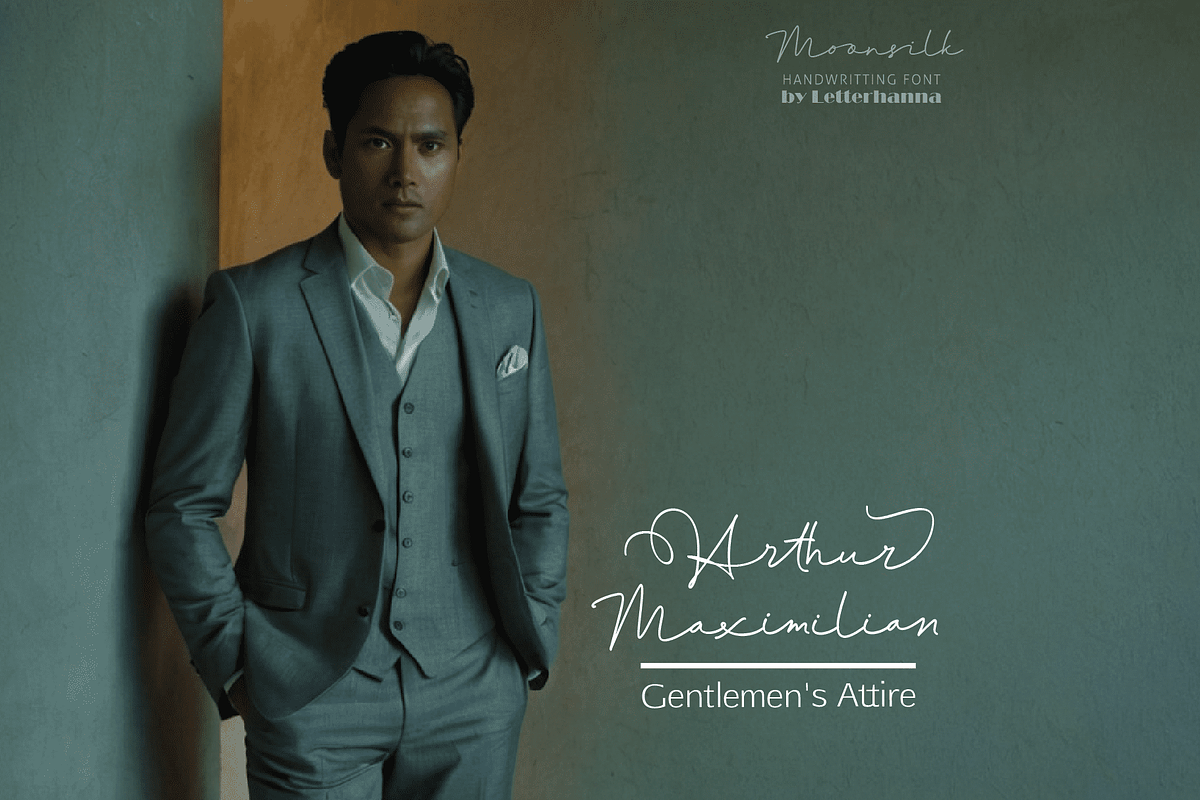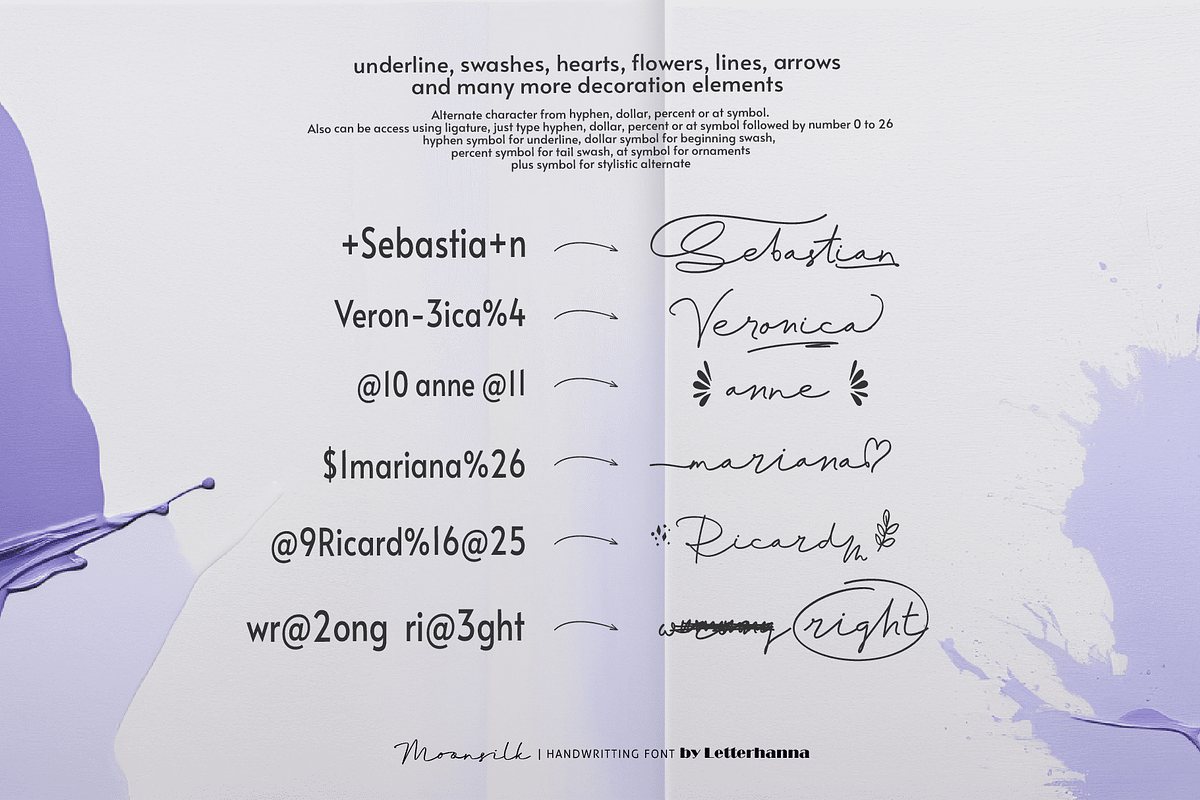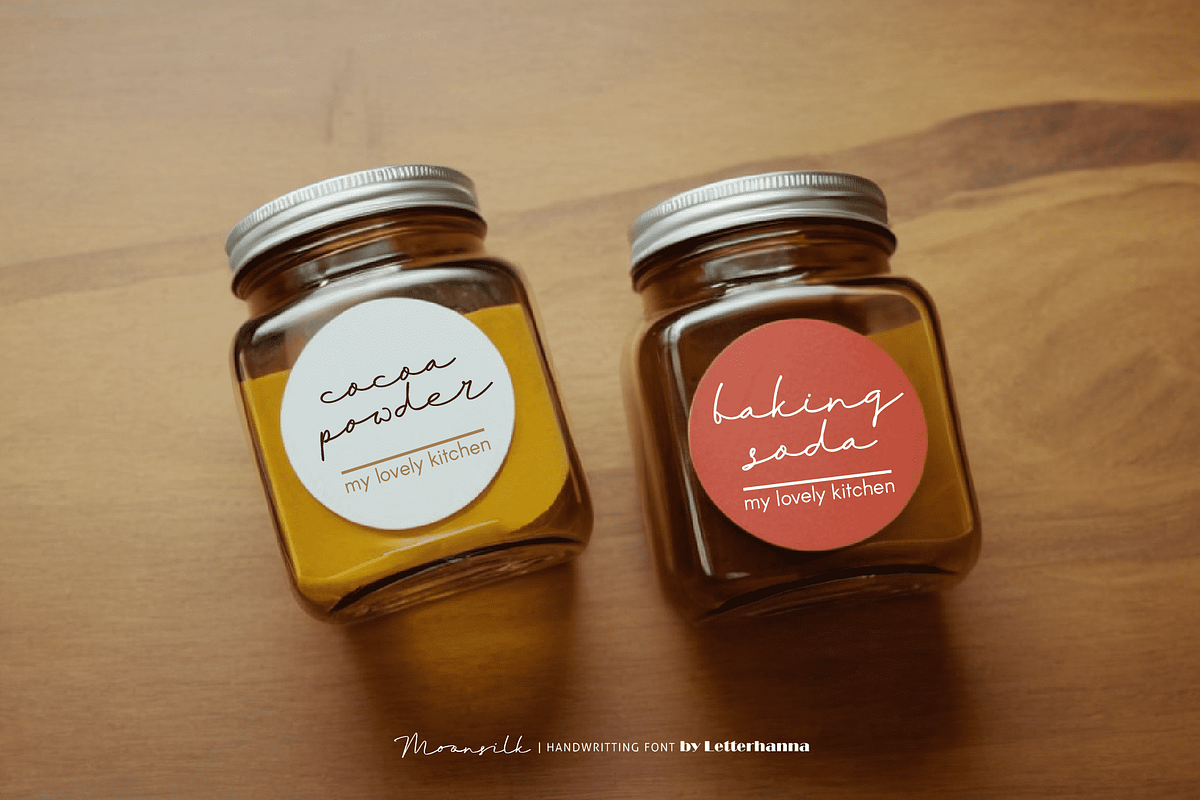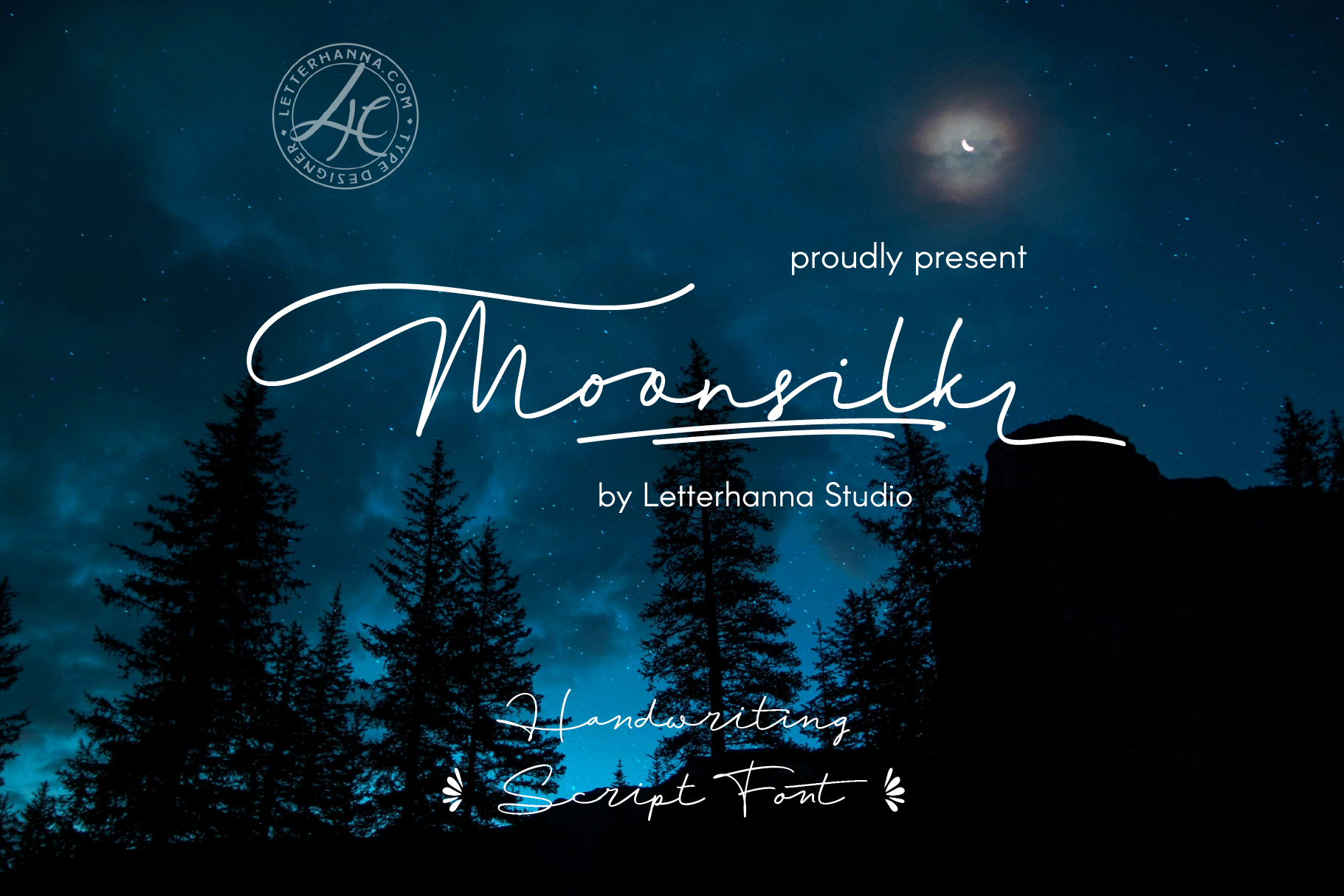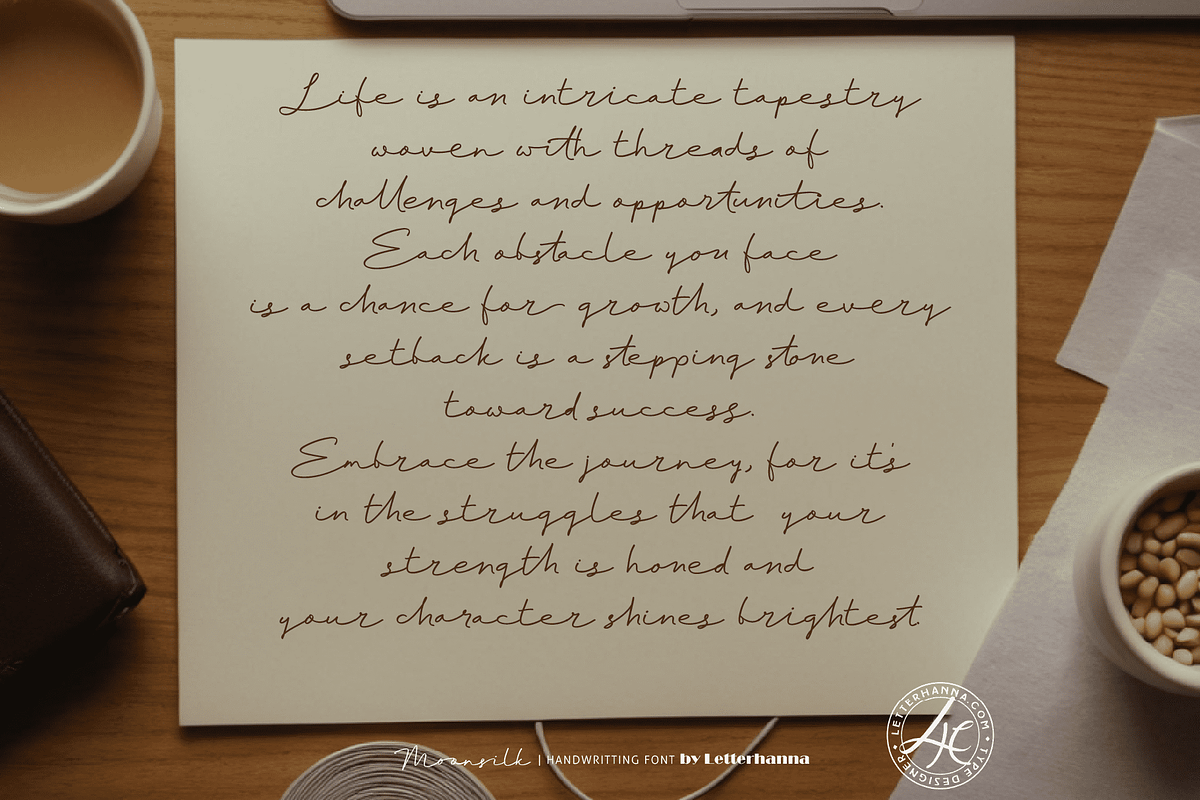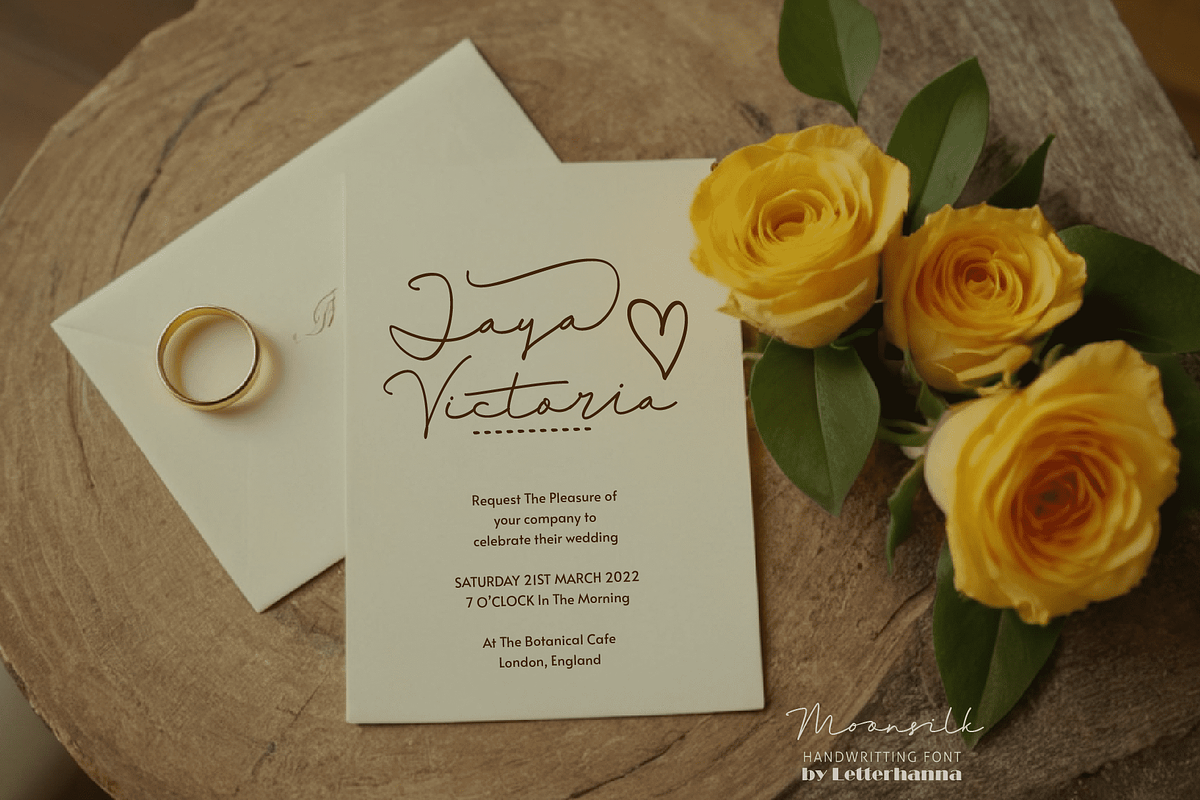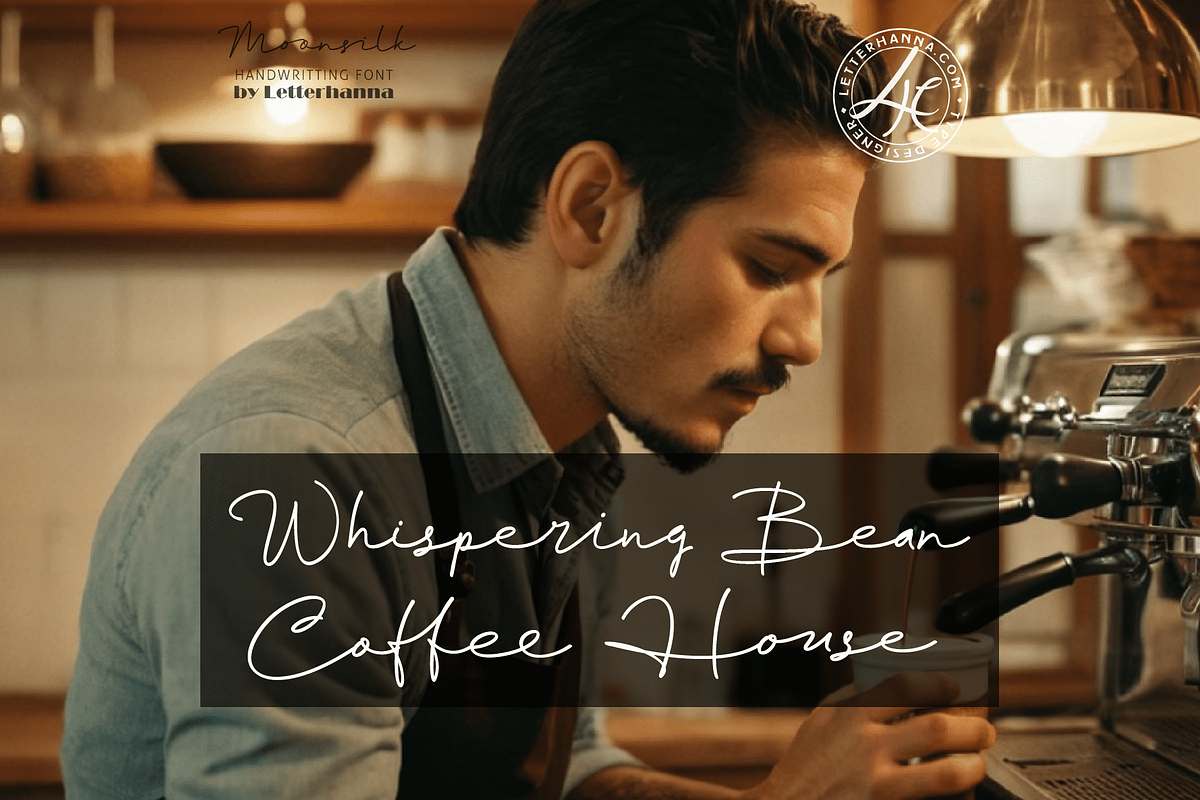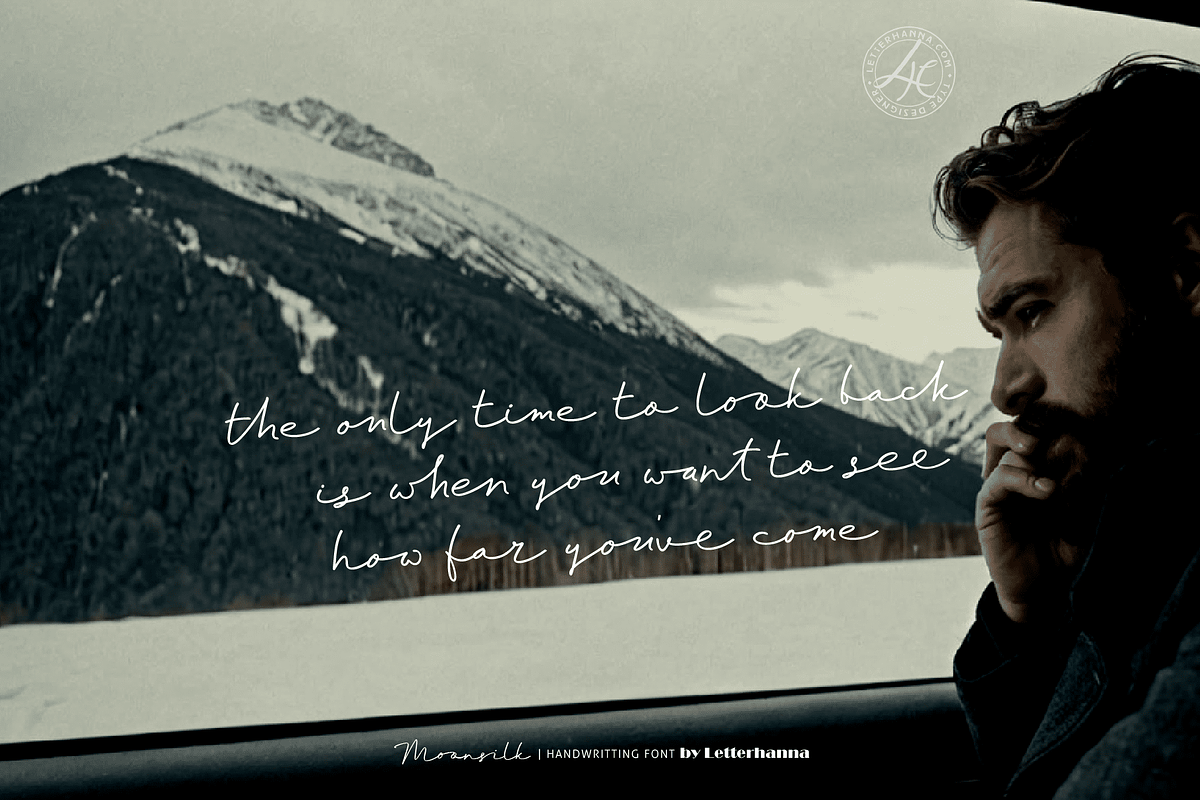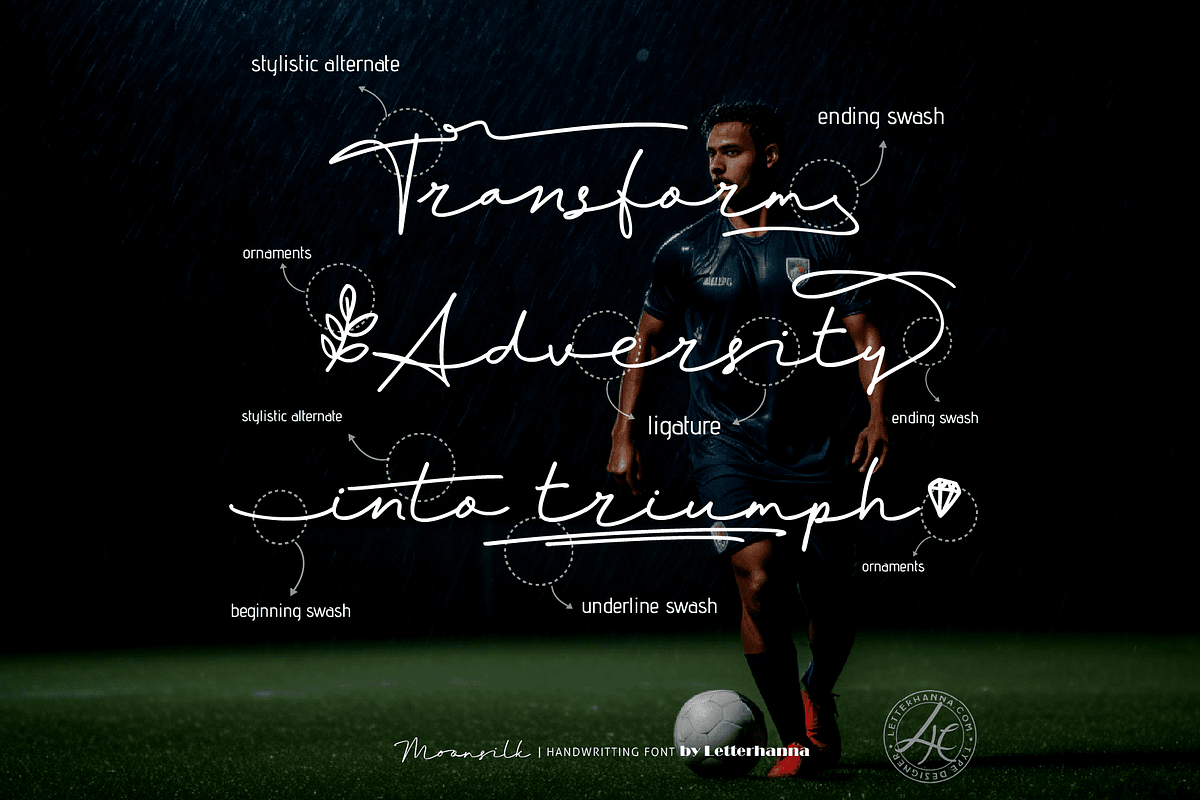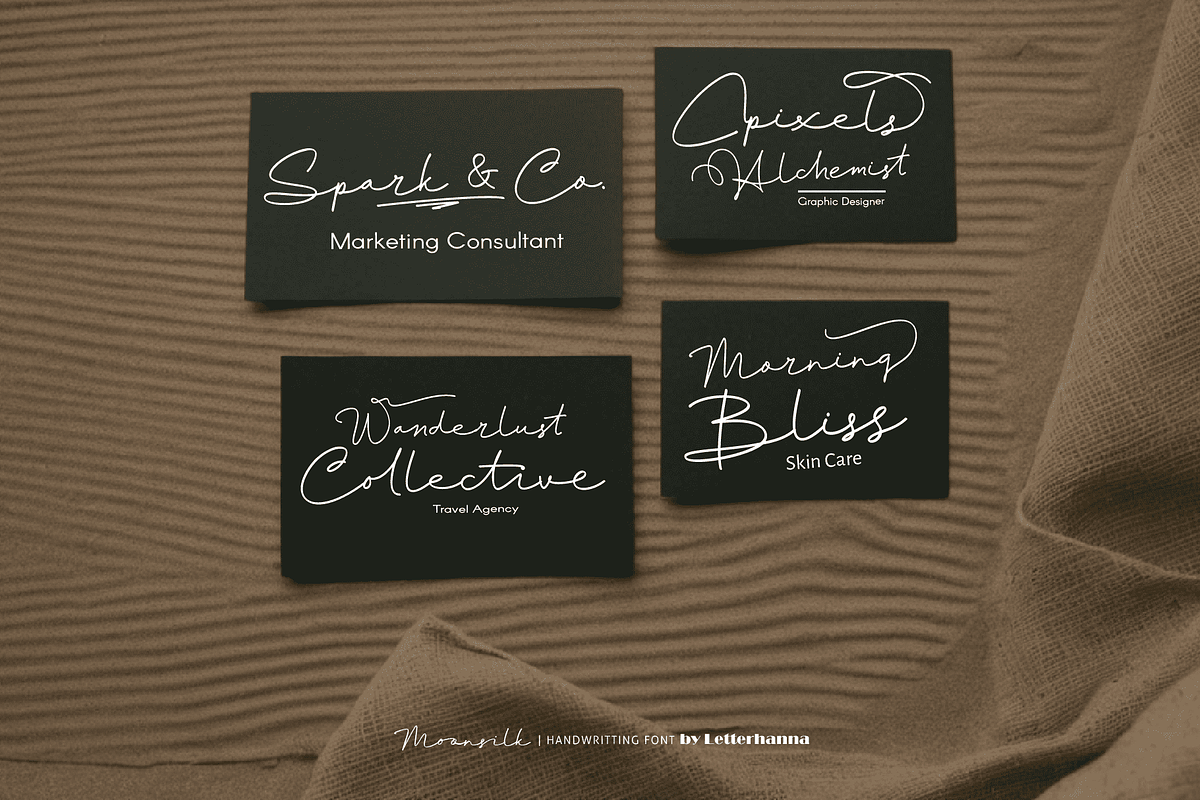
Moonsilk Font
Introducing Moonsilk: Where Elegance Meets Ethereal
Moonsilk is a typeface that captures the luminous quality of moonlight woven into the delicate threads of silk. Its soft curves and pearlescent sheen evoke a sense of luxury and otherworldly beauty.
Moonsilk is perfect for: Wedding invitations and stationery: Add a touch of timeless elegance to your special day. Branding and packaging for luxury products: Elevate your brand with a touch of sophistication. Creative projects with a touch of fantasy: Let Moonsilk add a hint of magic to your designs.
Moonsilk shimmers with potential, ready to illuminate your next project.
Accessing Stylistic Alternates Stylistic alternates can be accessed by typing a plus symbol "+" in front of the original letter. For example, type "+a" to get the stylistic alternate of the letter a.
Accessing Swashes and Ornaments Underline Swashes: Use a hyphen symbol "-" followed by a number between 1 and 30. For example, type "-3", "-22", or "-17" to get various underline swashes.
Head/Beginning Swashes: Use a dollar sign "$" followed by a number between 1 and 9. For example, type "$2" or "$8" to get different head/beginning swashes.
Tail/Ending Swashes: Use a percent sign "%" followed by a number between 1 and 30. For example, type "%3" or "%15" to get various tail/ending swashes.
Ornaments: Use an "at" symbol "@" followed by a number between 1 and 26. For example, type "@4" or "@13" to get different ornaments.
Uppercase and lowercase letters
Numbers and punctuation marks
Beginning and ending swashes
Underline swashes
Stylistic alternates
Ornaments
Easy access to swashes using ligatures